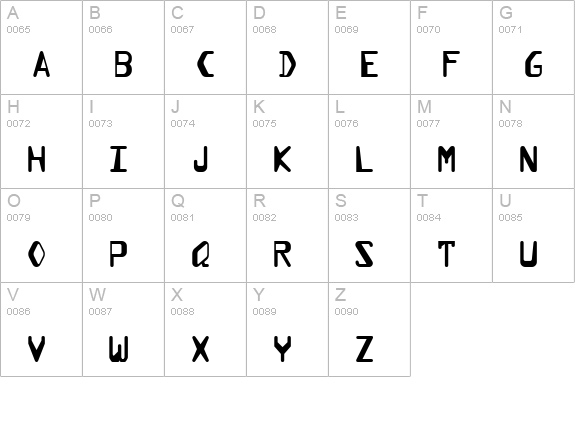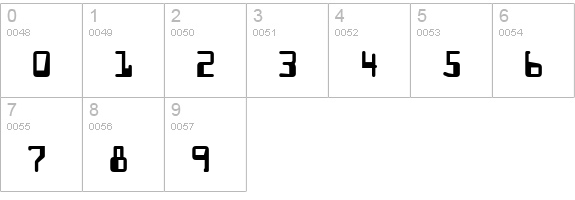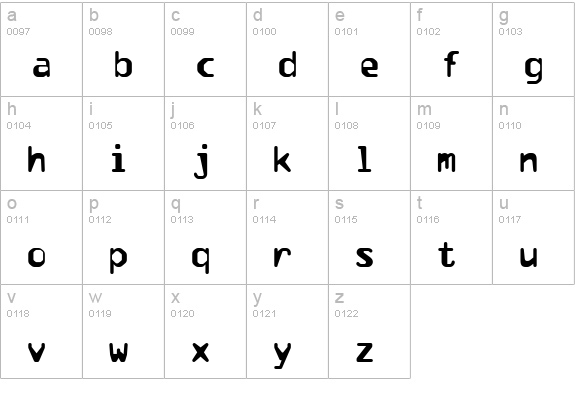
PFData Font Details
PFData font is a modern and versatile typeface that exudes elegance and sophistication. With its clean lines and sharp edges, this font is perfect for a wide range of design projects, from branding to editorial design. Its sleek and minimalist design makes it a great choice for conveying a sense of professionalism and modernity. What sets PFData font apart is that it is not only stylish and functional, but also completely free to use. You can easily download this font for free at FontsMarket.com, making it accessible to anyone looking to elevate their design projects without breaking the bank. Don't miss out on the opportunity to add this beautiful and versatile font to your collection today!